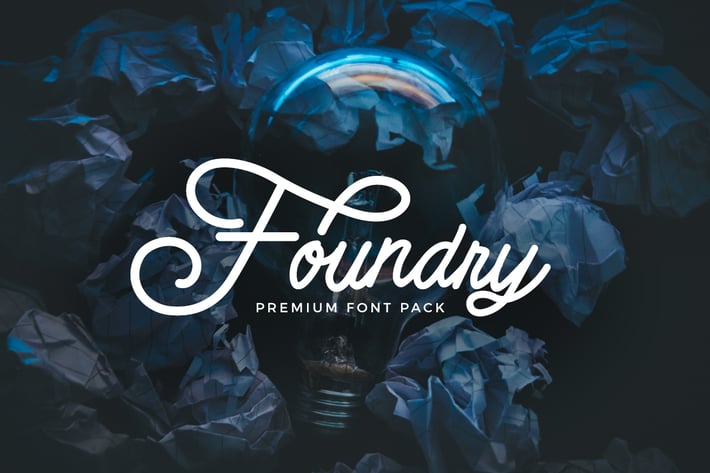
Foundry - font pack
We Provide You one of the best Stylish Hand Written Script.
Best match for logos, header, Titles, Prints & other Creative process possibilities.
Create a Extraordinary Typography / lettering results by using Foundry Font Pack